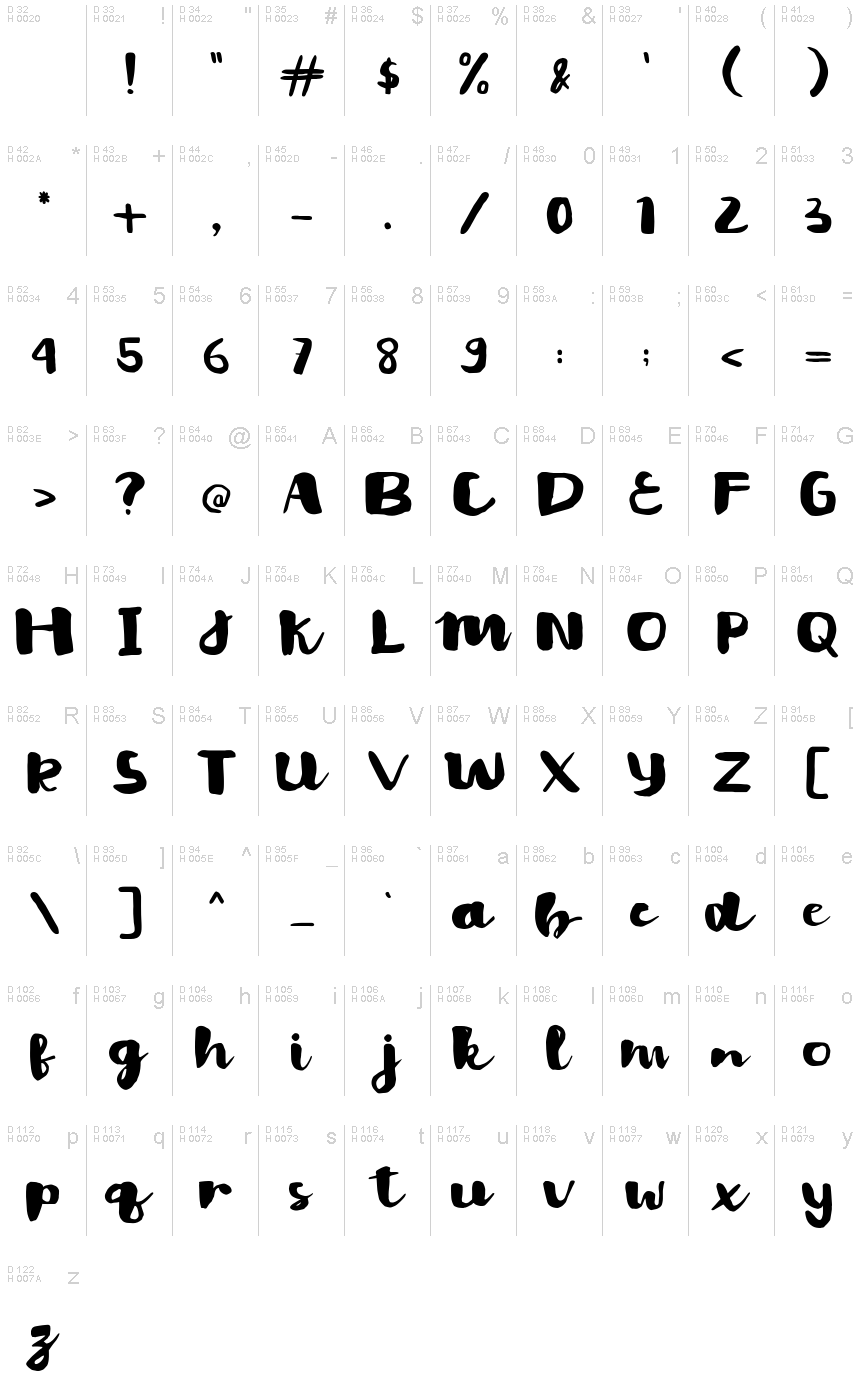
Hanya Willde Demo Regular
Hanya Willde font by madeDeduk is a casual bold brush typeface with an expanded width. The contemporary appearance and stylish look are achieved due to the unusual shape of some of its main letters and the few overly decorative elements.
This essential free font is guaranteed to shine in tattoos, album covers, t-shirts, packaging labels, book covers, and online posts. Get creative using it for diary covers or coloring books both aimed at children or adults as well as party invitations.